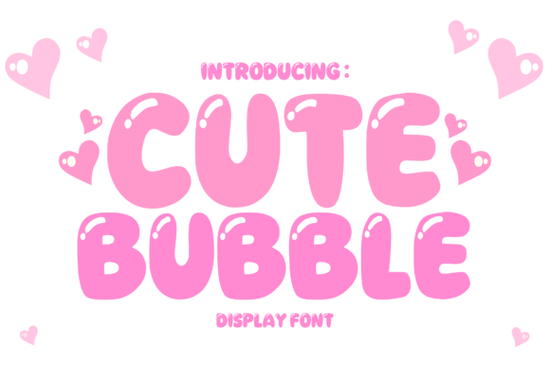
When your project needs a dose of pure happiness, a typeface like Cute Bubble Font makes every headline feel like a hug. This display font is built with extra-rounded edges and a bouncy baseline that instantly lifts the mood of any design. Whether you’re crafting birthday invitations, social media stickers, or a new T-shirt graphic for your Etsy shop, the playful character of this font helps your words connect on a more personal, lighthearted level.
Who actually needs a cute bubble font?
If you design children’s products, party supplies, or want warm branding, this style belongs on your shortlist. Small-business owners use it to appear approachable. Crafters making cards or sublimation prints appreciate how rounded letters print cleanly at small sizes. Social media managers also use cheerful display fonts to stop the scroll on Instagram Stories and thumbnails.
What makes Cute Bubble Font stand out?
Not every rounded font carries the same joyful energy. This one balances “childlike” and “clean.” The letters are expressive but not messy, so you can use it for a bakery logo or comic header. Consistent stroke width and open counters keep it readable at a glance. Even in a single color, the font feels playful and adds warmth to flat designs, sublimation prints, and collages.
Where does this font work best?
You can drop Cute Bubble Font into a wide range of creative projects. Here’s where it really shines:
- Party invitations and greeting cards – gives a hand‑lettered feel for birthdays, baby showers, and thank‑you notes.
- Merchandise for kids – friendly shapes on T‑shirts, tote bags, and stickers appeal to both parents and children.
- Social media templates – quote posts and story captions gain a personality boost without extra effort.
- Comic panels and webtoons – fits speech bubbles and sound effects naturally.
- Digital planners and journal kits – popular for GoodNotes stickers and printable junk journal elements.
Is this font a good fit for print-on-demand sellers?
Absolutely. Print-on-demand creators need fonts that translate well from screen to physical products. Because this font has a clear, rounded silhouette, it holds its shape when printed on textured surfaces like cotton T-shirts or matte mugs. It also pairs nicely with standard sans-serif fonts for product mockups think a cute quote in the bubble font above a clean product name in a neutral typeface. When you’re designing Mother’s Day mugs or unicorn-themed phone cases, this font gives you that ready-made sense of sweetness without extra graphic elements.
How can I pair a bubbly font with other typefaces?
The trick is to pick a companion that stays in the background. A clean, lightweight sans-serif like Montserrat or Open Sans works well for body text. For a slightly different mood still friendly but with more structure a font like College Duo brings a playful serif twist. Use the bubble font for headlines and the second typeface for dates or subtitles.
Where can I explore more fonts like this?
What if I want to use it in a comic or children’s book?
This font fits speech bubbles, title pages, and chapter openers. The rounded endings mimic comic lettering, so dialogue feels expressive without hand‑drawing. For a children’s book, use large sizes with short sentences and white space. Avoid long paragraphs the charm works best in small bursts.
Quick checklist before you start designing
- Test the font at multiple sizes on screen and paper rounded shapes should stay crisp, not fuzzy.
- Confirm .otf/.ttf compatibility with your design app and cutting machine if you plan vinyl projects.
- Pair with a neutral secondary font for body copy; two playful typefaces often compete.
- Experiment with pastel colors soft pink, mint, or sunny yellow to emphasize the cheerful letters.
Pick a small project first, like a thank-you card or a social media banner, to see how the typeface behaves in a real layout before you roll it out across your entire brand.